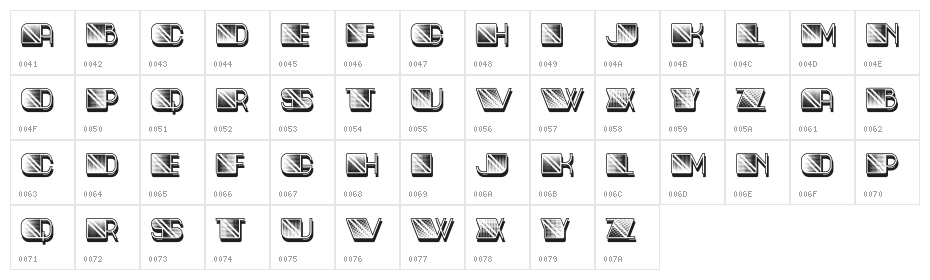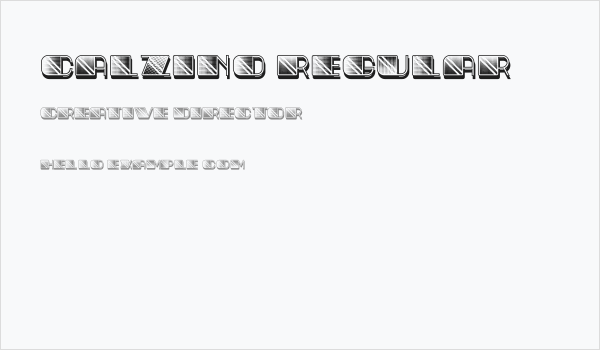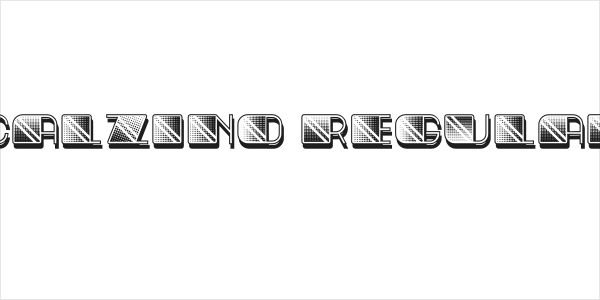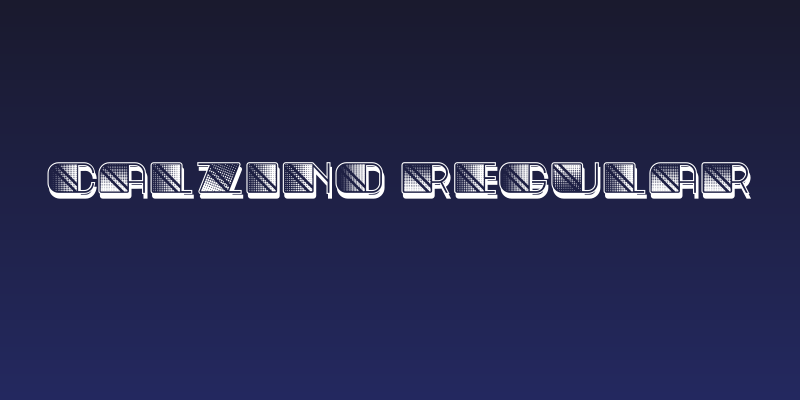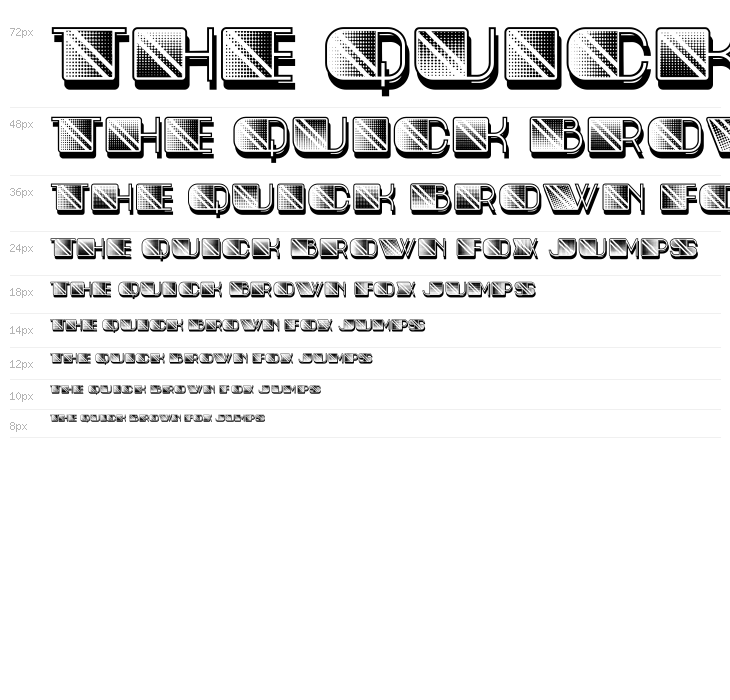
Calzino Regular Font
Calzino Regular Description
This font features a bold, decorative style with a unique 3D effect. Each character is outlined with a thick black border, creating a striking contrast against the inner pattern. The interior of the letters is filled with diagonal lines, adding texture and depth. The overall design is reminiscent of retro or vintage styles, making it ideal for eye-catching displays. The uppercase letters are consistent in height and width, providing a uniform appearance. The font's playful yet structured design makes it versatile for various creative projects.
| Proposed Projects | Ideal for posters, logos, headlines, and any project needing a retro or vintage flair. |